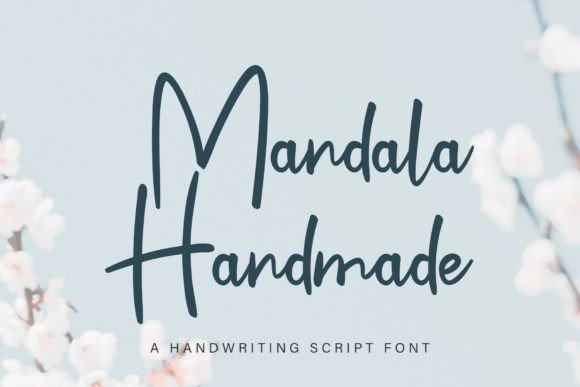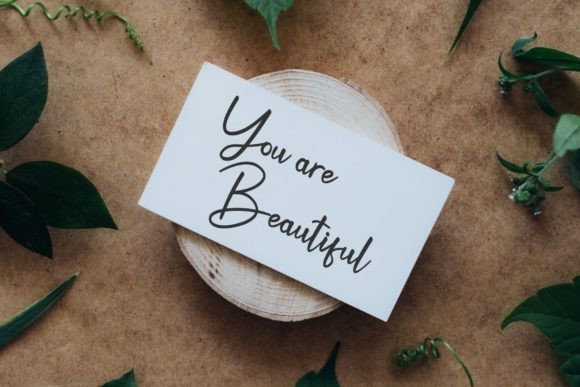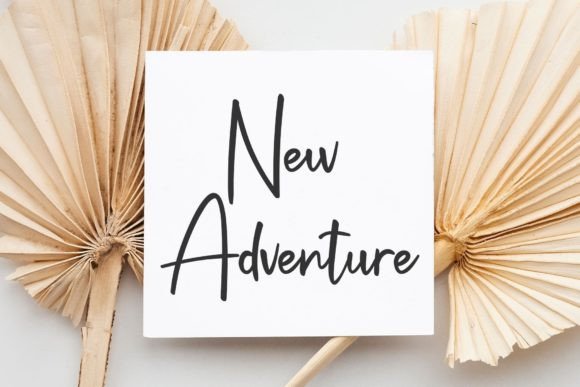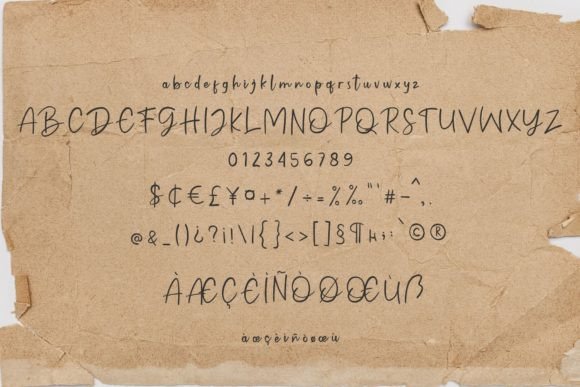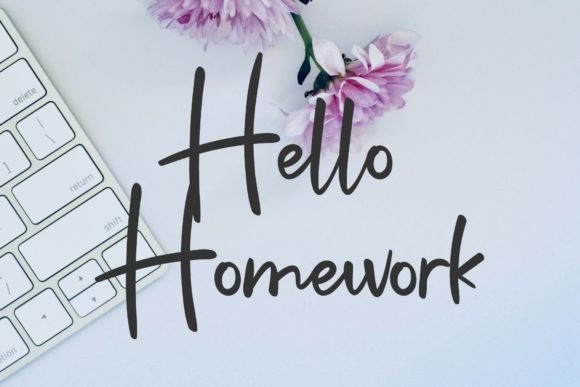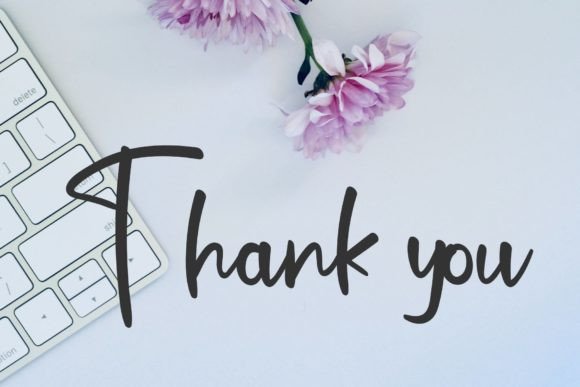
Mandala Handmade Font
About Mandala Handmade Font
“Mandala Handmade” is a distinct round-lettered handwritten font, thoughtfully crafted for use on titles, invitations, letters, and various other creative products. With its unique design, this font adds a special touch to your text, making it a versatile and engaging choice for a range of design projects.
The round-lettered style of Mandala Handmade imparts a distinctive and artistic aesthetic to your text, offering a handmade and creative vibe. Whether you’re creating attention-grabbing titles, personalized invitations, or heartfelt letters, this font is designed to enhance the visual appeal of your content with a touch of artistic flair.
By incorporating Mandala Handmade into your creative projects, you can expect amazing and visually pleasing results. The careful craftsmanship behind this font ensures that it delivers the intended aesthetic, making it a reliable choice for achieving the desired impact in your design work.
In summary, Mandala Handmade is more than just a font; it’s a carefully crafted tool that brings a unique and handwritten artistic charm to your creative projects. Whether you’re working on titles, invitations, or other types of content, let Mandala Handmade be the round-lettered font that adds character and a touch of creativity to your designs, leaving you amazed at the fantastic results.